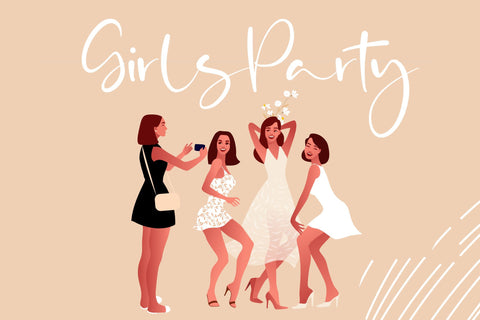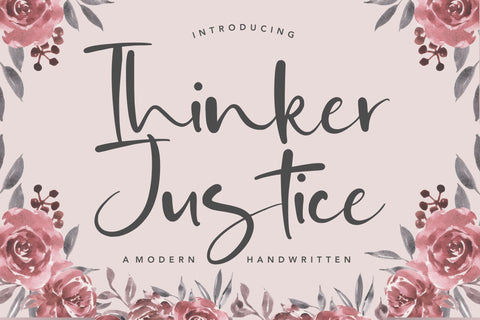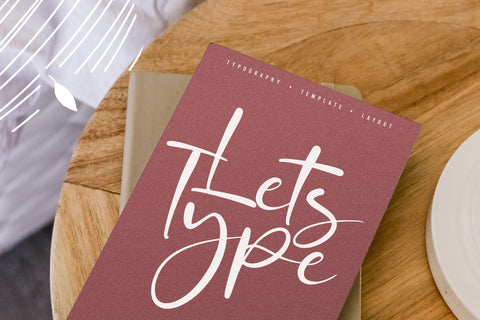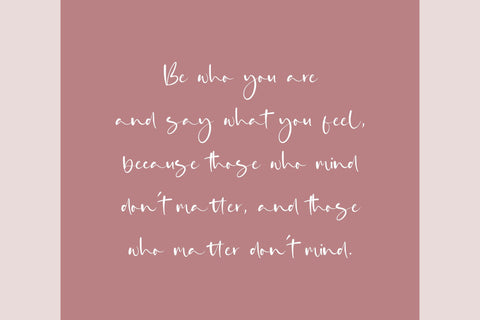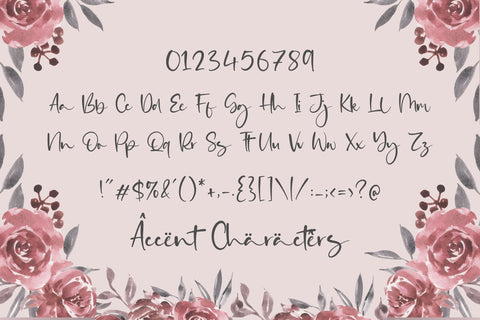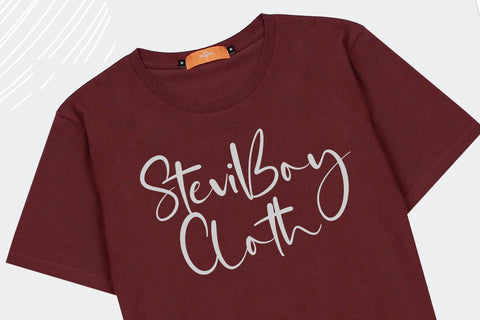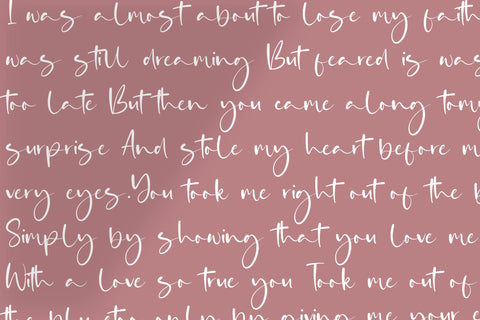
Thinker Justice Modern Handwritten Font
Proudly Present, Thinker Justice Font.
Thinker Justice is a Modern Handwritten Font.
Thinker Justice is perfect for product packaging, branding project, megazine, social media, wedding, or just used to express words above the background.